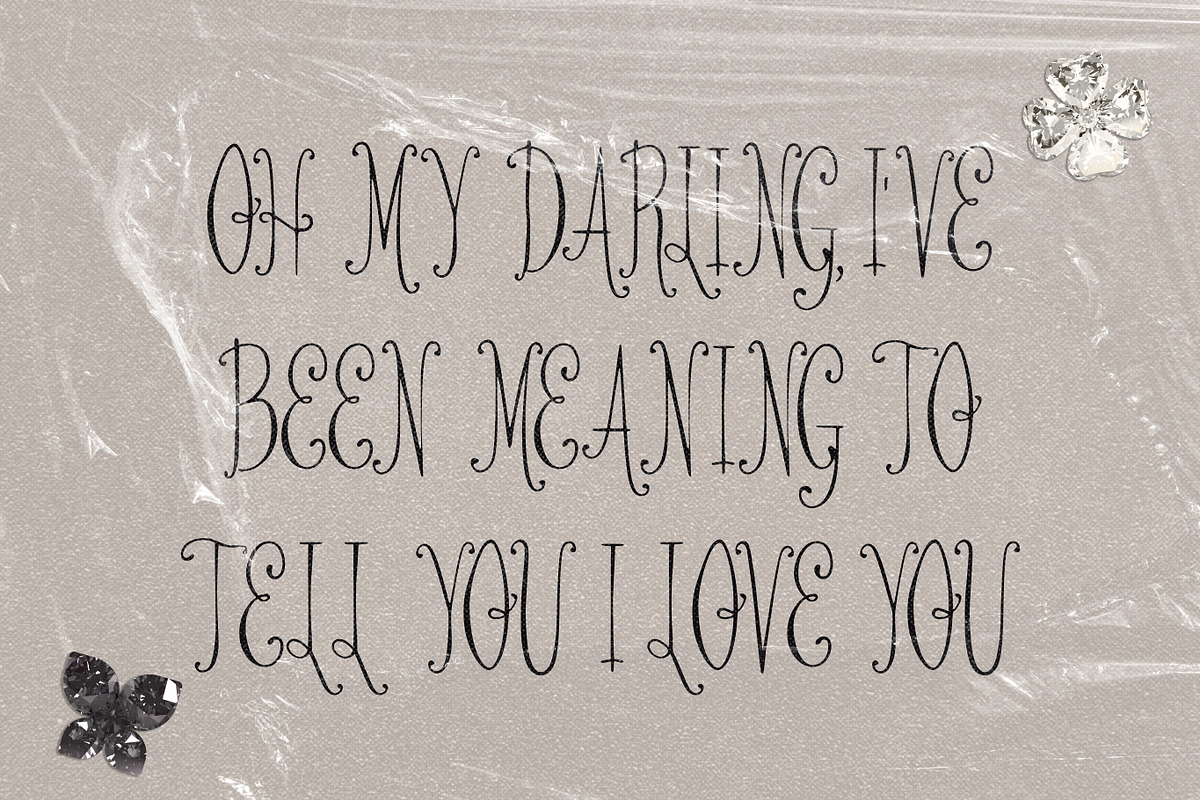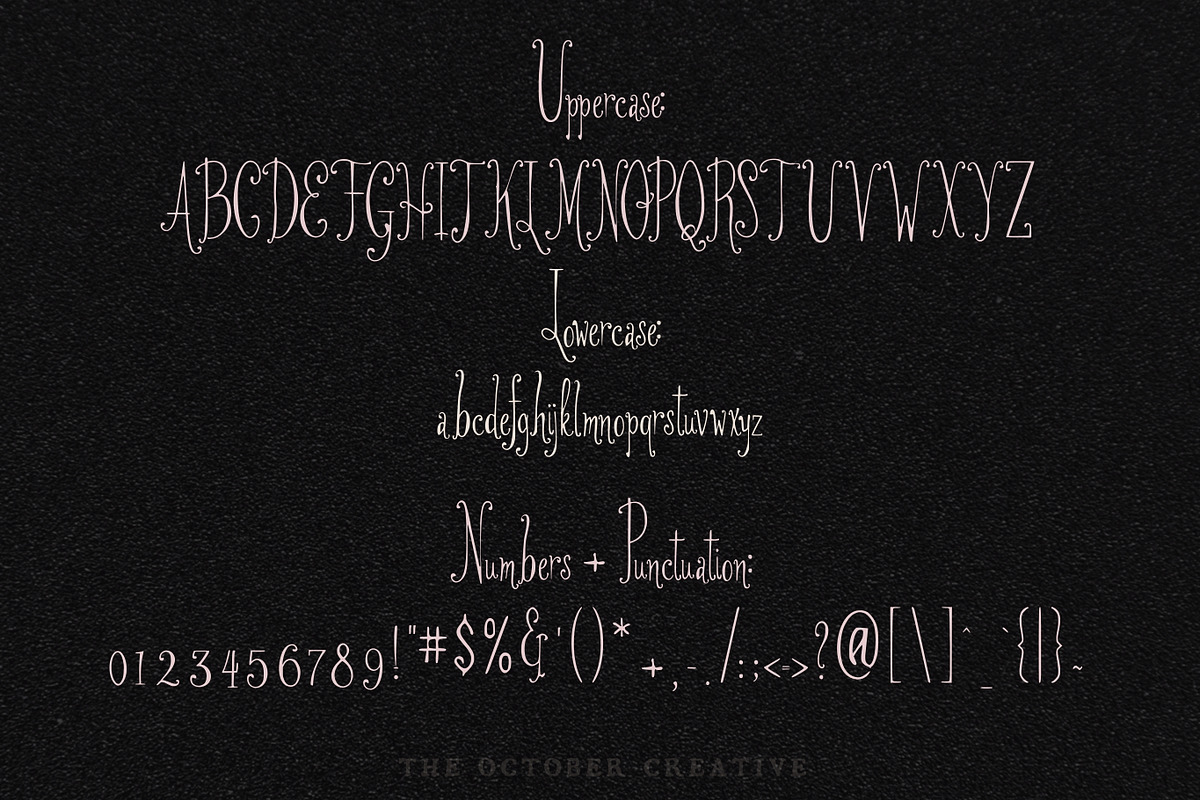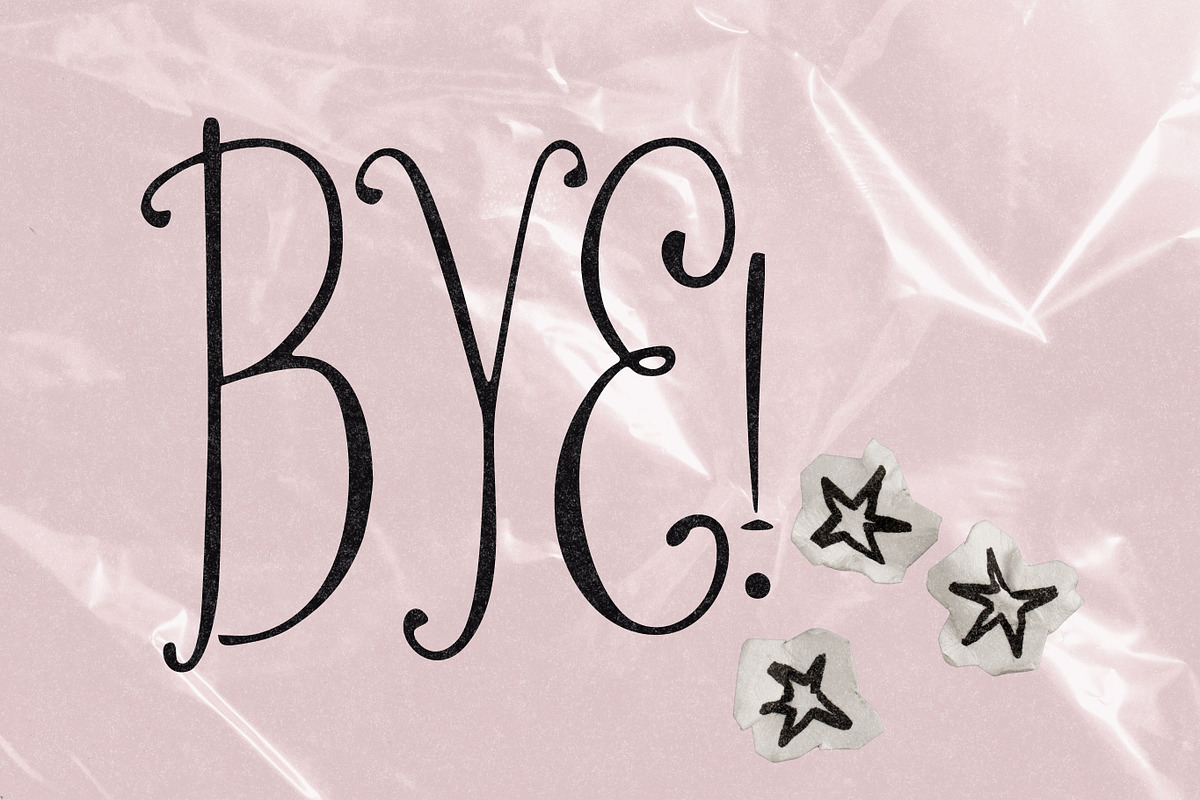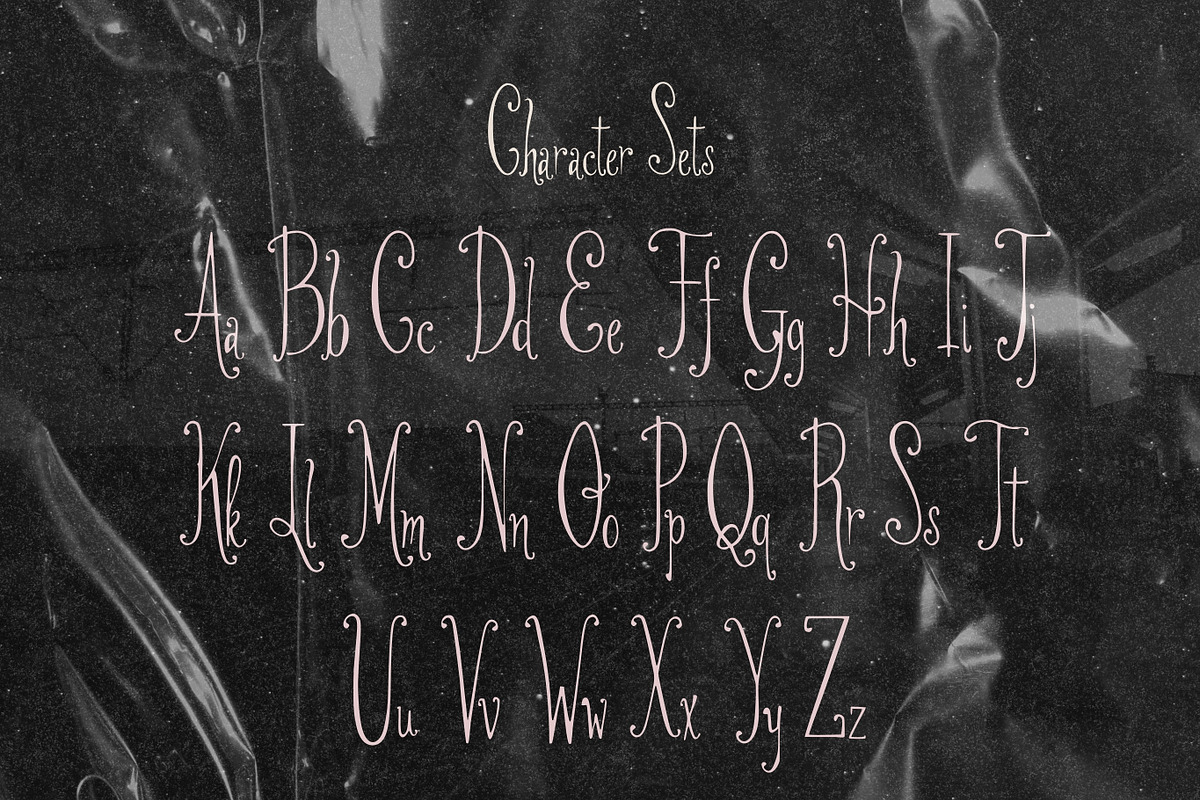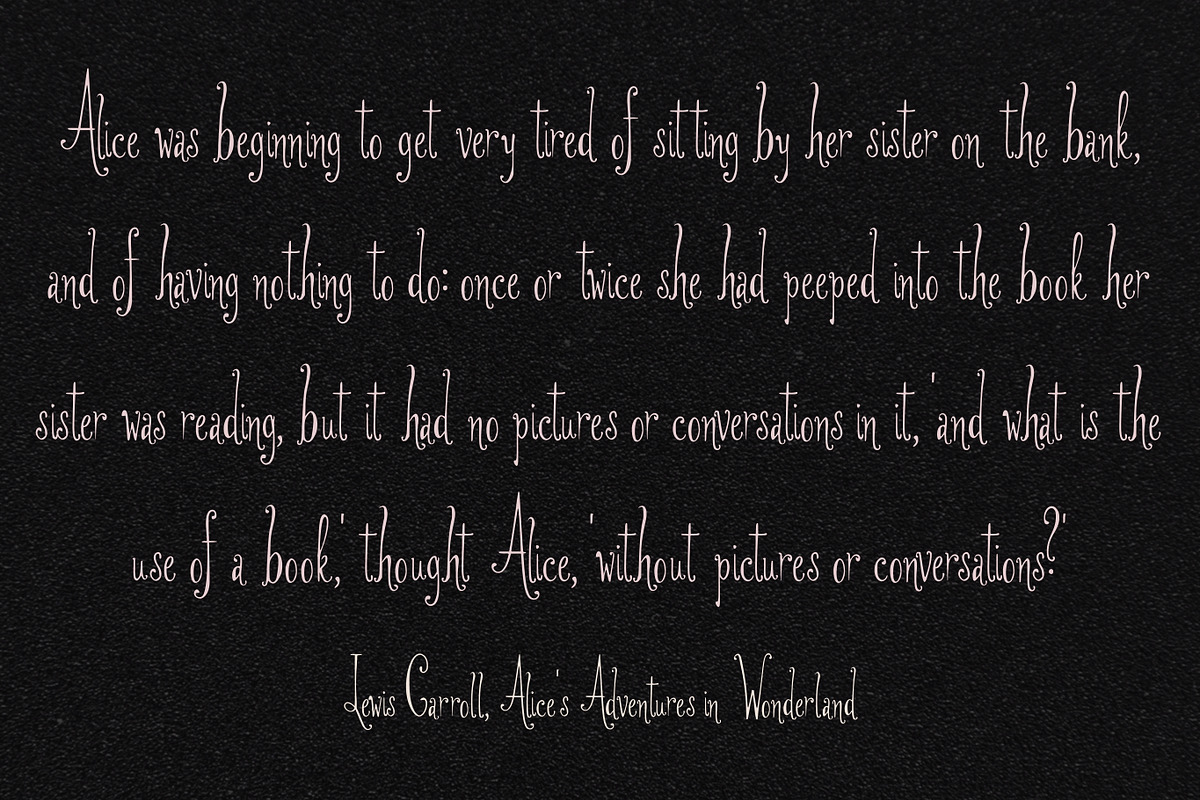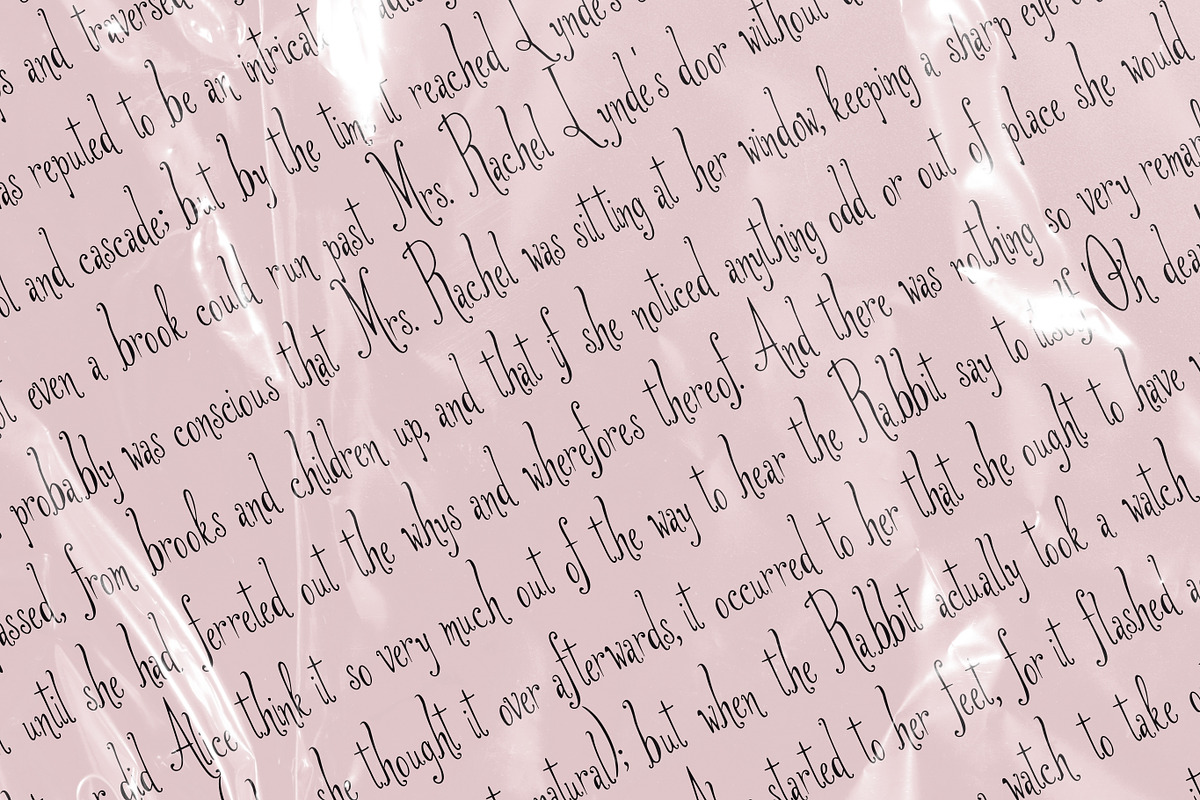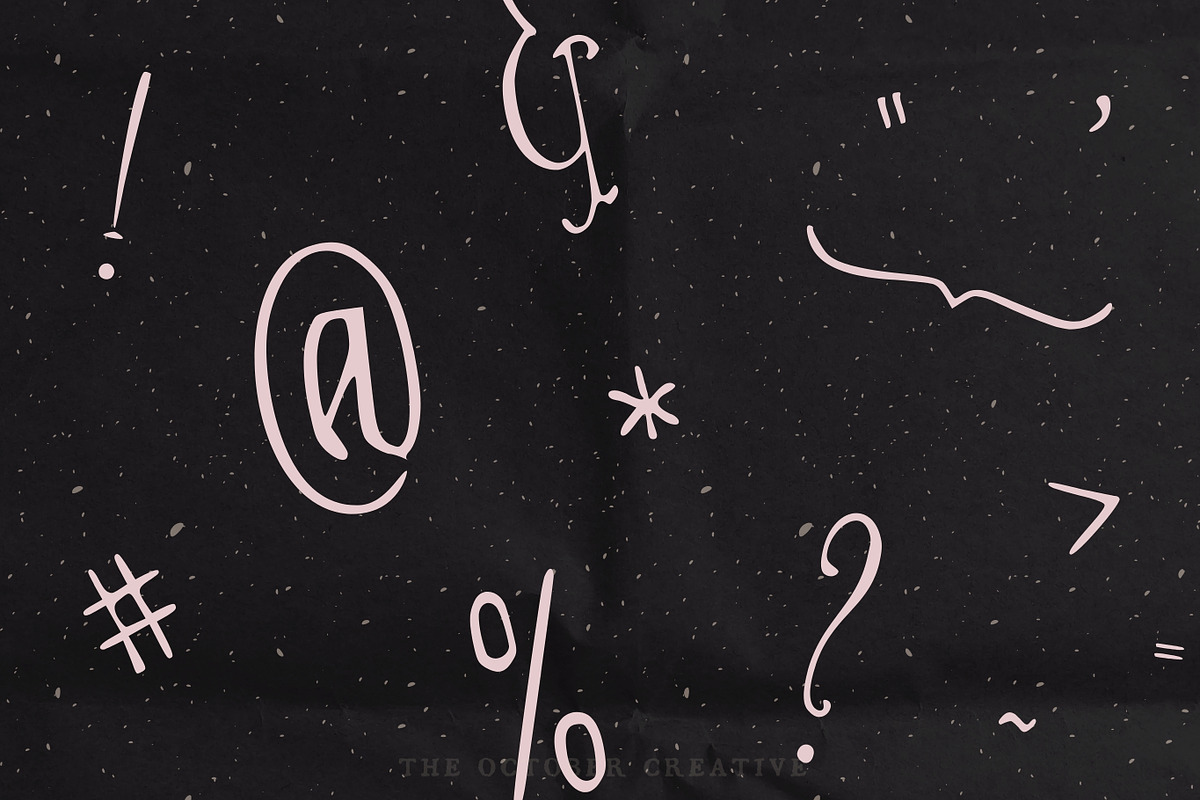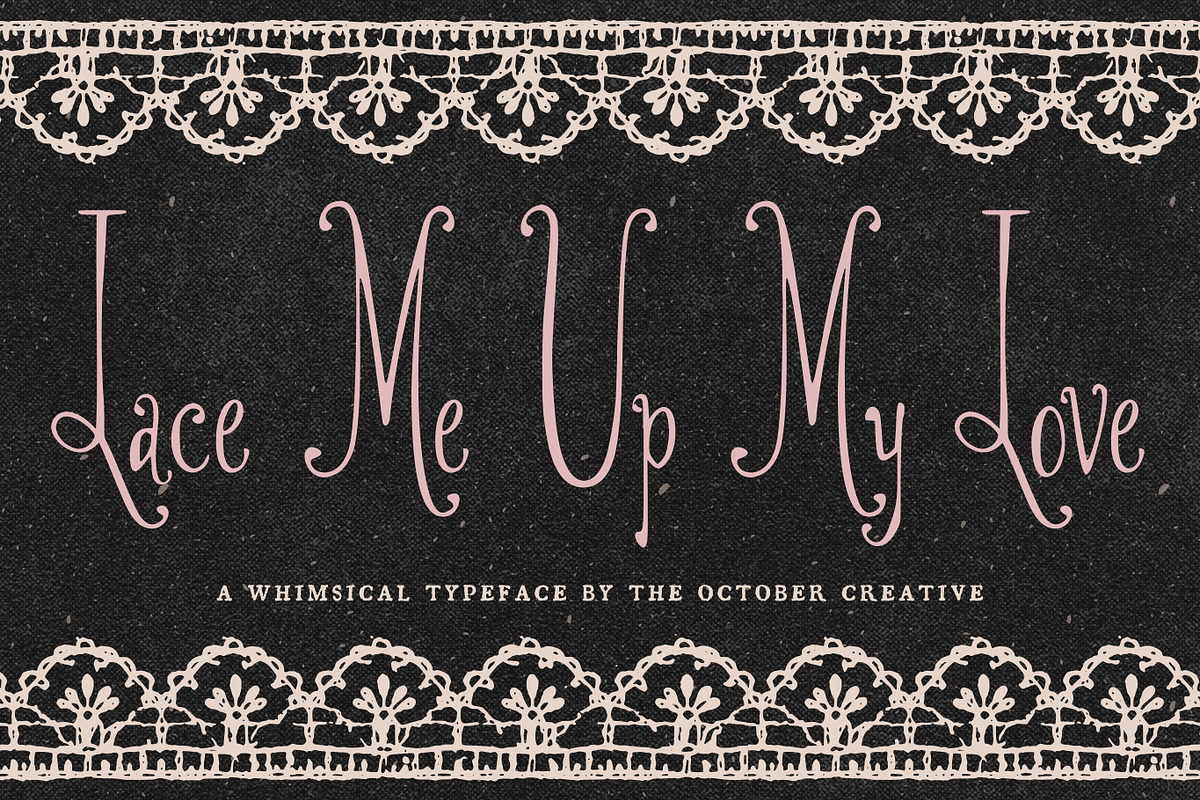
Lace Me Up My Love Whimsical Serif
Lace Me Up My Love is a romantic serif font with very tall hairline capitals, sweeping curls, and a small, light lowercase. It's best for names and short lines on wedding invitations, place cards, vow prints, and perfume-style labels.
CHARACTER SET
Uppercase A to Z, lowercase a to z, numerals 0 to 9, and every standard keyboard punctuation mark and symbol: ! " # $ % & ' ( ) * + , - . / : ; < = > ? @ [ \ ] ^ _ ` { | } \~
Curly quotes and apostrophes (‘ ’ “ ” ‚ „), en and em dashes, an ellipsis, and a bullet.
Accented letters: À Á Â Ã Ä Å Ç È É Ê Ë Ì Í Î Ï Ñ Ò Ó Ô Õ Ö Ù Ú Û Ü and their lowercase forms.
LANGUAGES SUPPORTED
English, plus the accented vowels, Ñ, and Ç used in names and everyday words in Spanish, French, Italian, Portuguese, German, and Dutch. Not included: ß, Æ, Ø, Œ, and the upside-down ¿ and ¡.
SPECIAL CHARACTERS